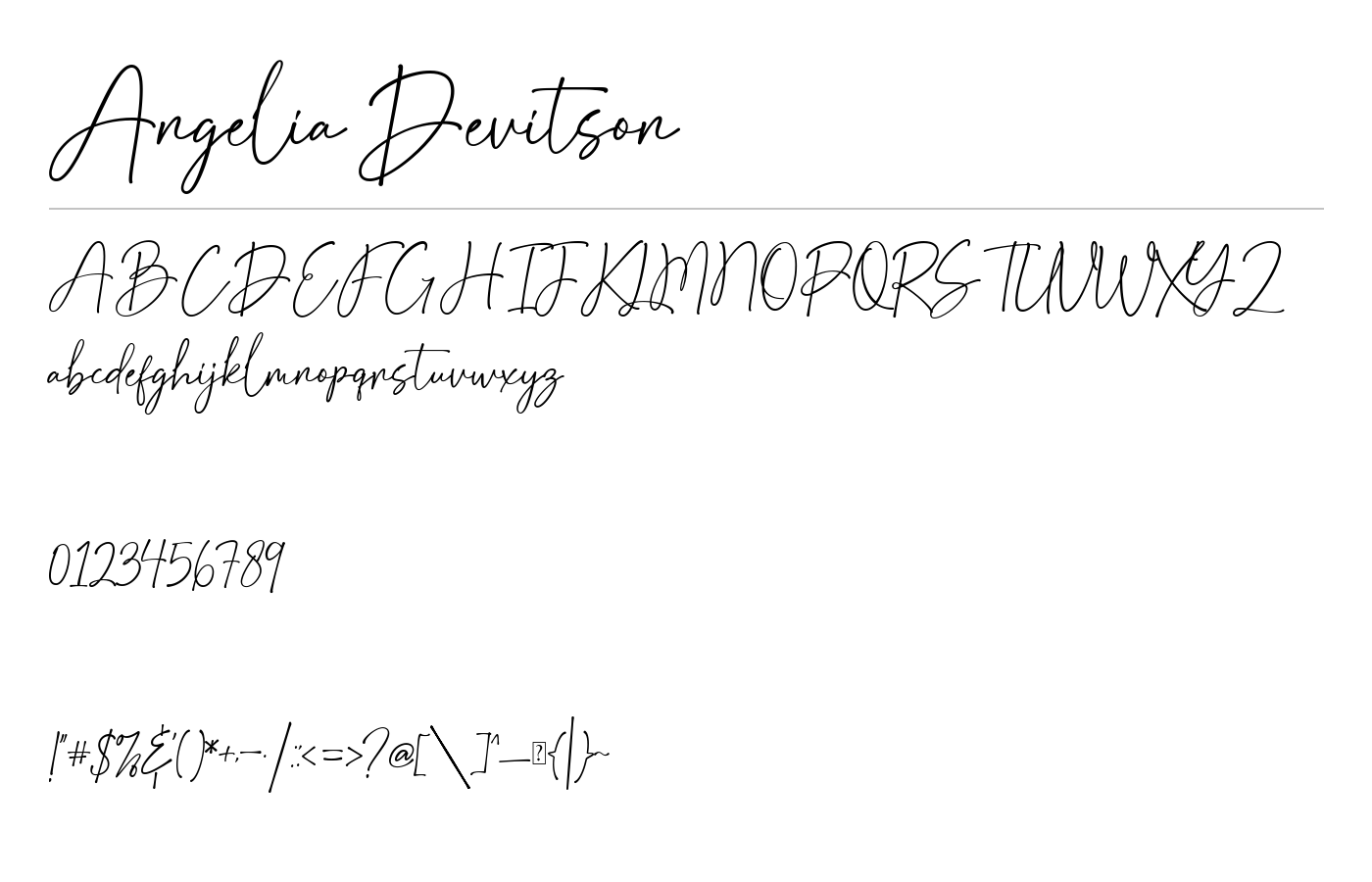
Angelia Devitson is a delicate, elegant script font with a graceful handwritten style that feels personal and refined. Its thin strokes and slightly playful letterforms make it perfect for branding, invitations, and creative projects that seek a light, sophisticated touch without sacrificing readability. This font shines in designs that want to convey warmth, elegance, and a modern, artisanal charm.
Angelia Devitson Font
About Angelia Devitson Font
| Font family | Angelia Devitson Font |